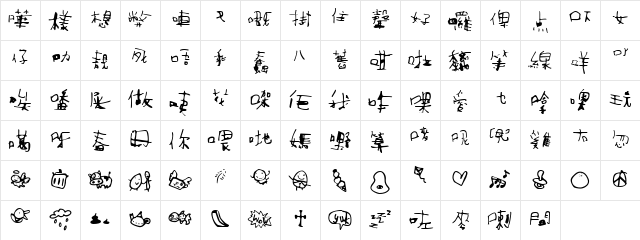
Complete A-MCMUG1 ITALIC glyph index. Displaying only characters natively supported by A-MCMUG1 ITALIC font.
A-MCMUG1 is a composed and adaptable typeface that performs quietly and consistently across a wide range of design contexts. The slanted form adds forward momentum and visual energy.